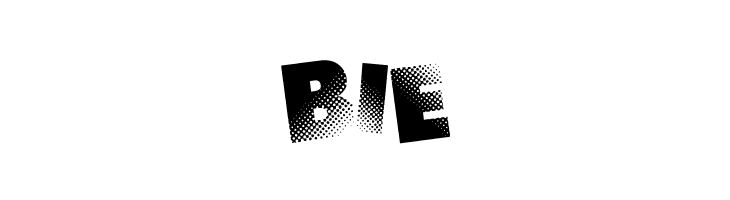
A bold, geometric font with a modern and strong presence.
A bold, playful font with a halftone pattern and a retro comic book feel.
A bold, geometric font with sharp angles and cut-out sections for a modern look.
A modern, geometric font with rounded edges and uniform width.
A modern, geometric font with rounded edges and a clean, streamlined appearance.
A modern, geometric font with rounded edges and consistent stroke width.
A bold, angular font with a gothic flair, perfect for dramatic and impactful designs.